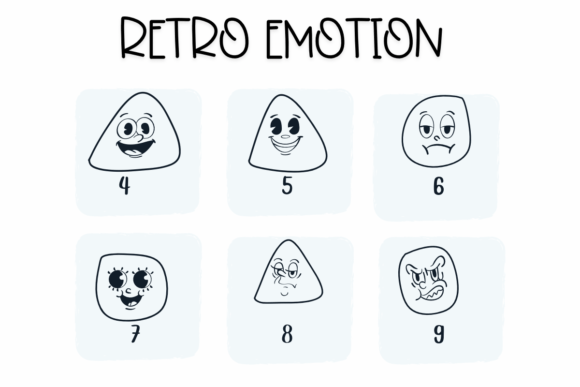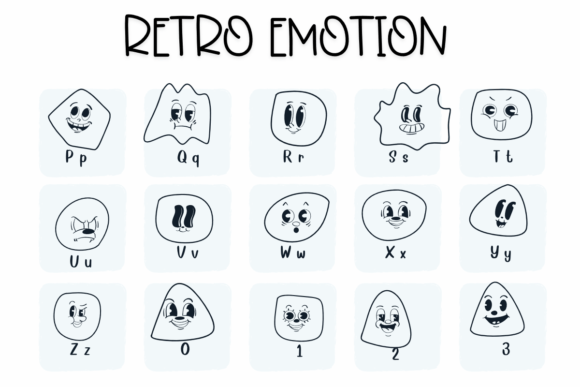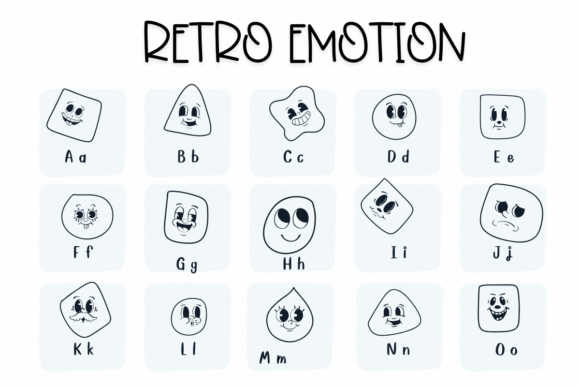
Introduction to Retro Emotion Font
Have you ever sat at your desk, staring at a blank canvas, waiting for that spark of creativity to strike? It’s a moment we’ve all experienced, and it’s exactly what drives designers to seek out the perfect font to bring their vision to life. For those who crave a touch of nostalgia and whimsy in their projects, the Retro Emotion Font is a game-changer. This charming dingbats font is designed to evoke emotions and add a personal touch to any creative endeavor.
As a valuable resource for designers, the Retro Emotion Font offers a unique opportunity to elevate your designs with a high-quality, emotive theme. Whether you’re working on a wedding invitation, crafting a DIY project, or designing a logo, this font is sure to add a special something that sets your work apart. And the best part? It’s available for free download, making it an accessible design resource for creatives of all levels.
Key Features of Retro Emotion Font
- Unique, hand-drawn design with a nostalgic feel, perfect for creative projects and designs that require a vintage touch.
- High-quality font with detailed, intricate details and a transparent background, allowing for easy layering and blending with other design elements.
- Features a large character set, including uppercase and lowercase letters, numbers, and punctuation marks, making it suitable for a wide range of creative projects.
- Perfect for use in creative projects, such as posters, flyers, brochures, and other marketing materials, where a unique and eye-catching font is desired.
Honest Review: Retro Emotion Font
I recently stumbled upon the Retro Emotion Font, and I must say it’s been a great addition to my design resources. ✨ The high quality of this font makes it perfect for any creative project that needs a vintage touch.
What I love most about the Retro Emotion Font is its versatility. It’s available for free download, which is a huge plus for designers on a budget. The font also comes with a transparent background, making it easy to use in any design setting.
Here are some of the key features that I appreciate about the Retro Emotion Font:
- Comes with a transparent background for easy use
While the Retro Emotion Font is a great resource, there are a few limitations to keep in mind: ⚠️
- The font is not suitable for all types of designs, especially those that require a modern or sleek look
- The font may not be as customizable as some other design resources
Overall, I’m really impressed with the Retro Emotion Font. It’s a great addition to any designer’s toolkit, and it’s perfect for creative projects that need a touch of nostalgia.
Use the Retro Emotion Font to add a touch of nostalgia and whimsy to your design projects.
The Retro Emotion Font is perfect for:
Designing vintage-inspired posters and flyers.
Creating unique and creative social media graphics.